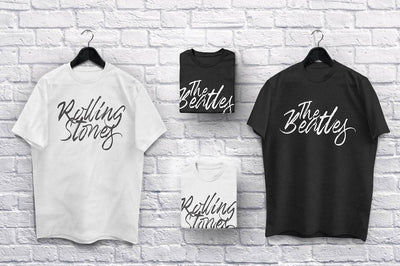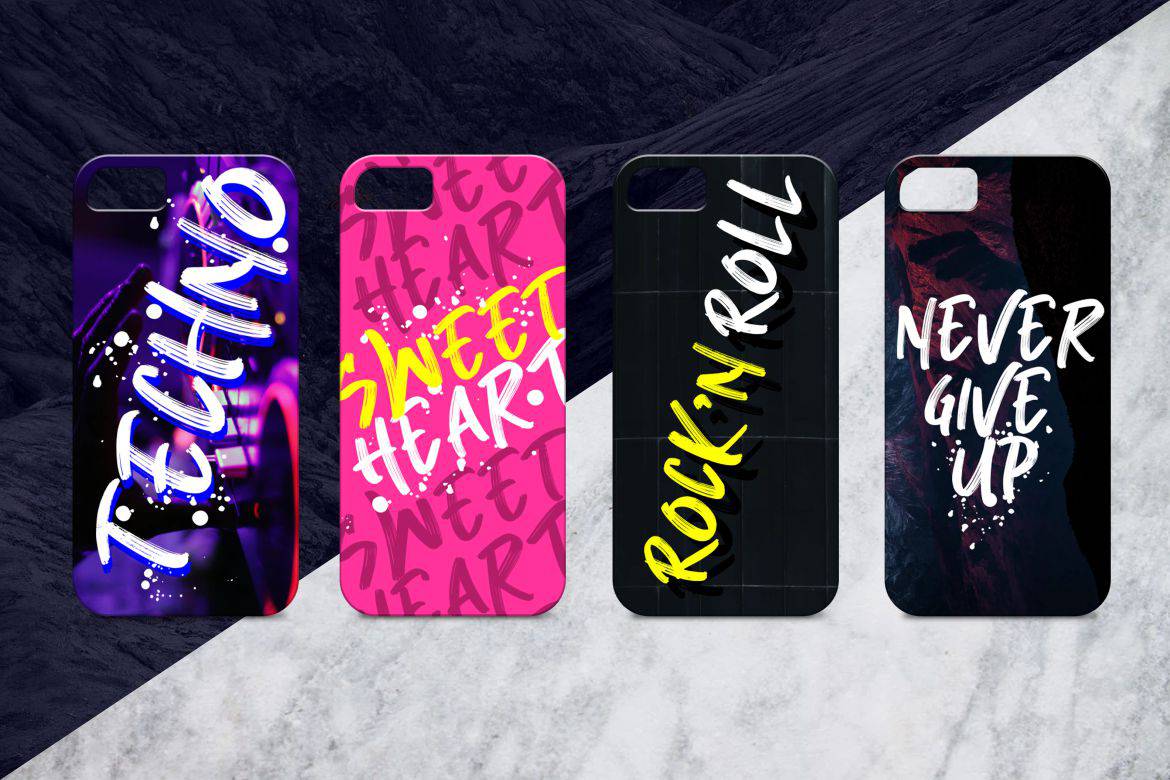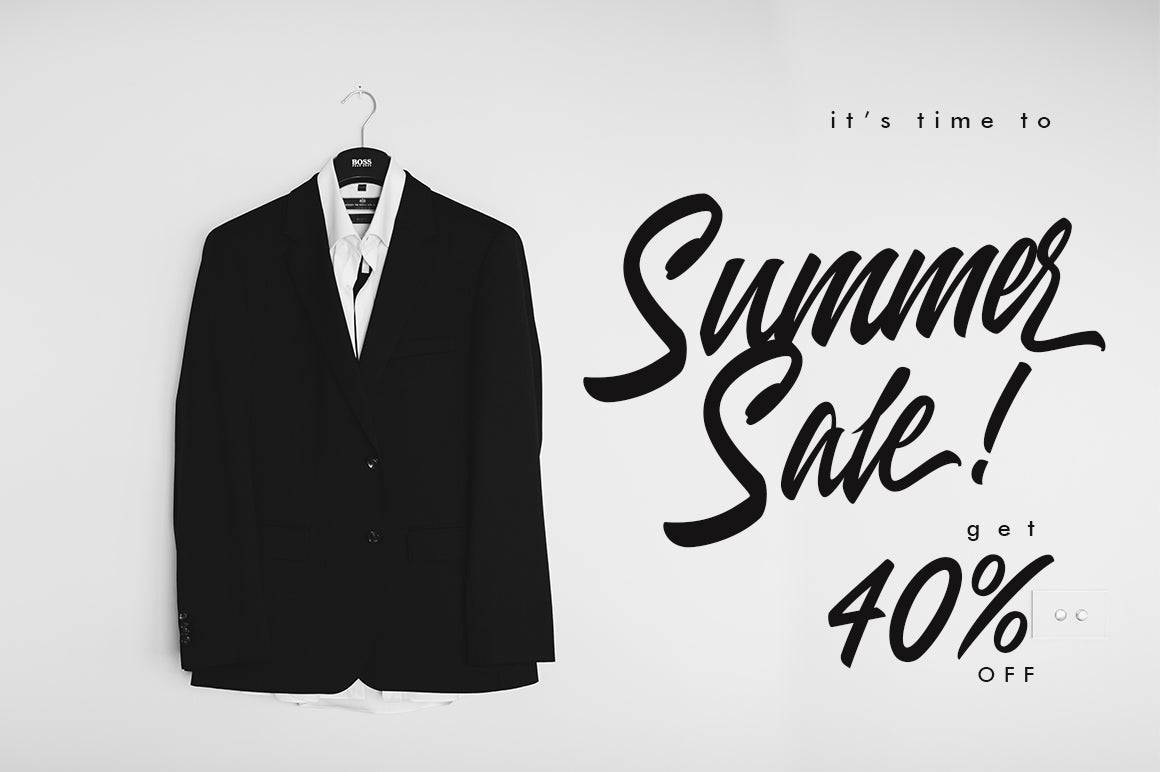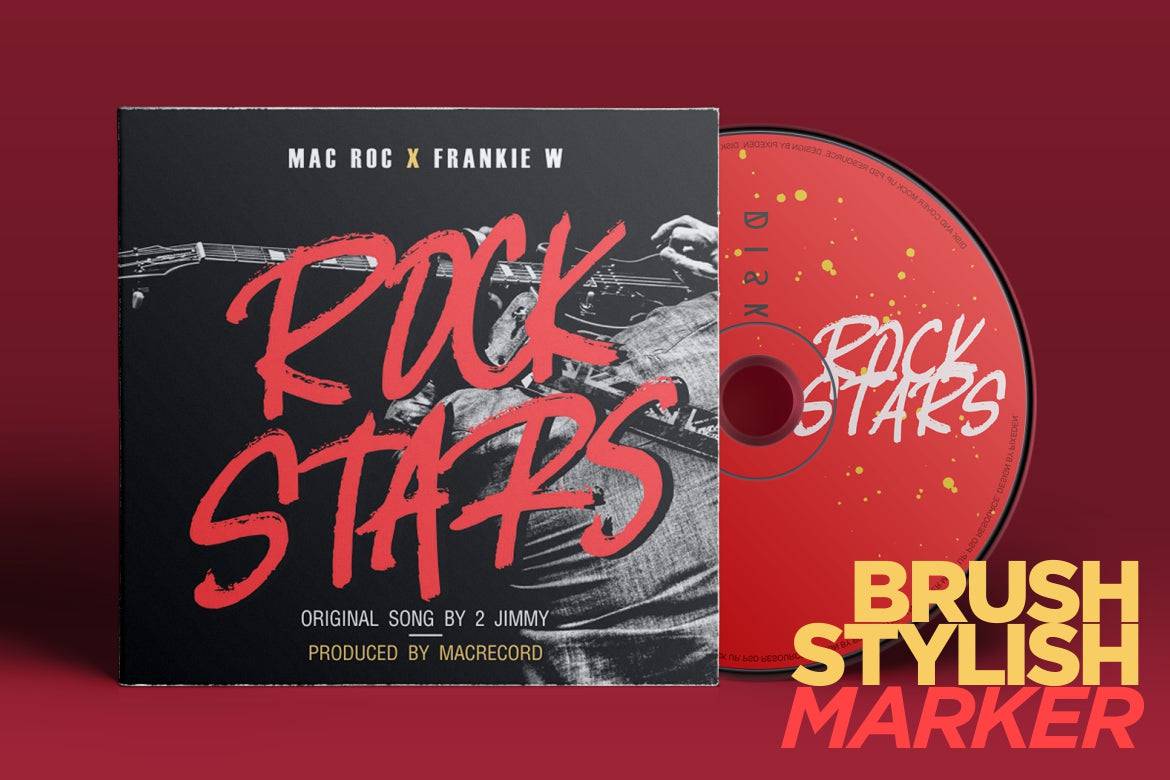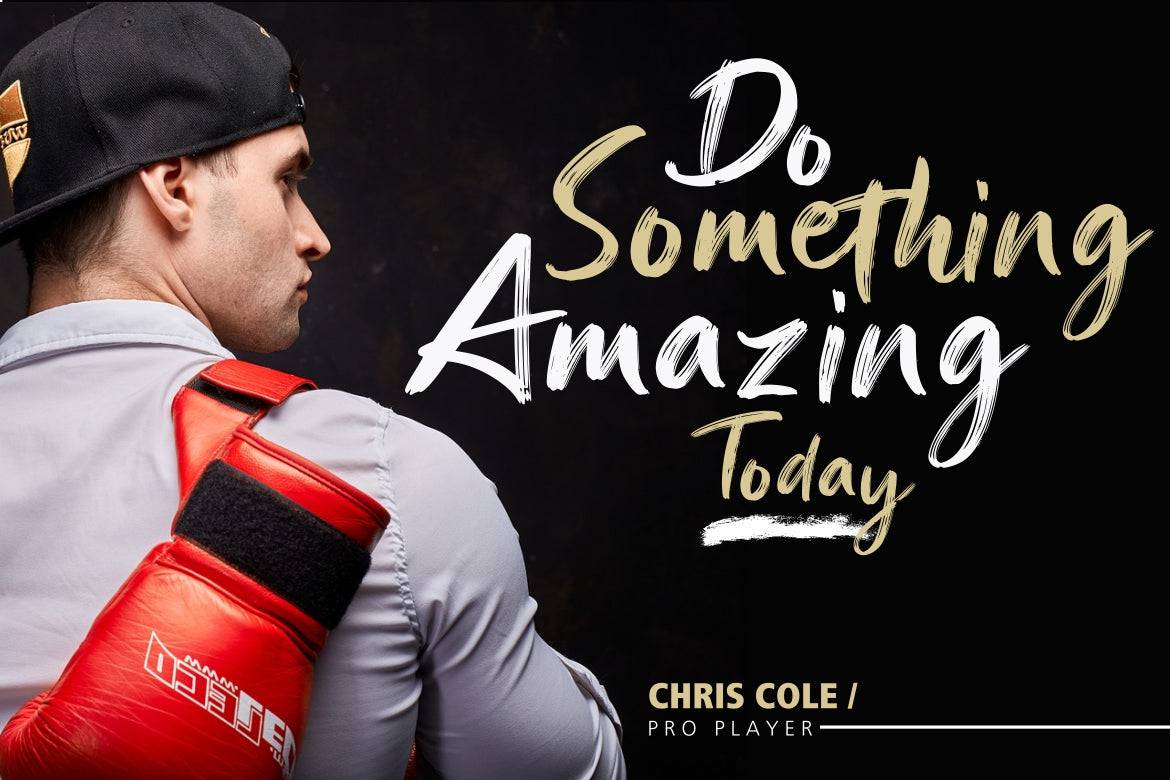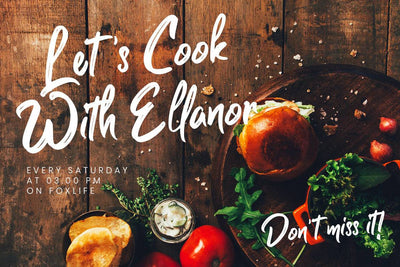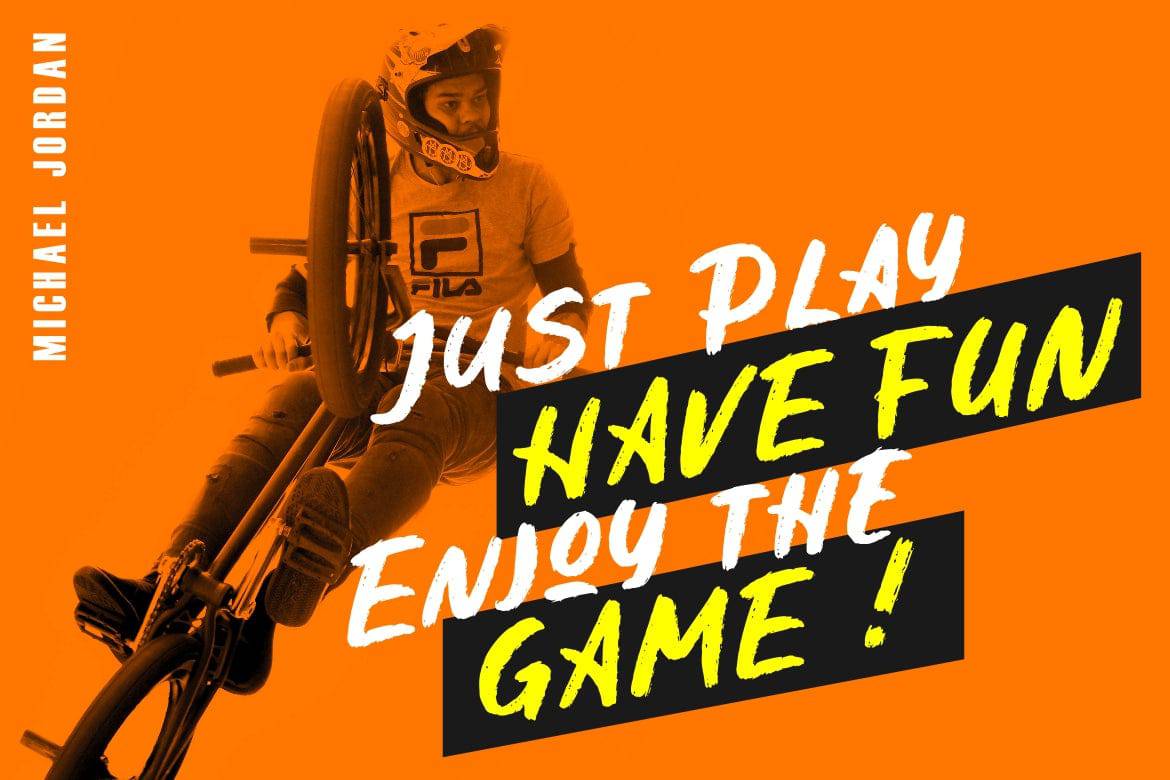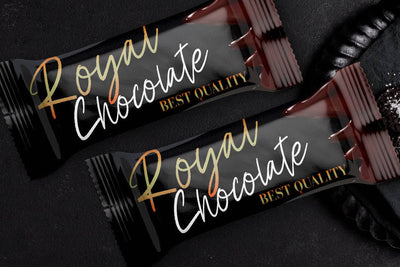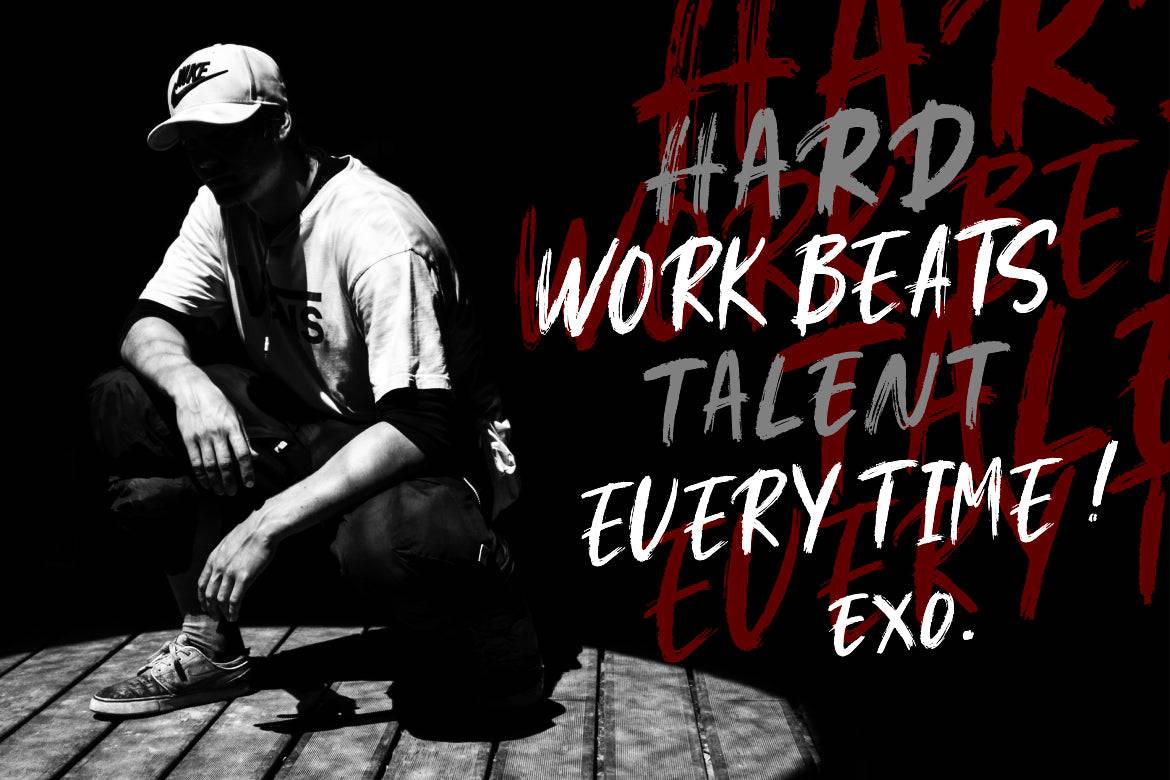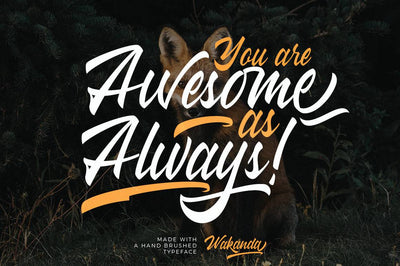
Introducing The Impressive Brush Script Font Bundle that contains some amazing brush fonts that will make your creative designs stand out.
These uniquely styled brush fonts are hand-crafted to mimic the original strokes and features of a brush.
Typefaces Included In This Bundle:
- Aksana
- Banshee
- Breaker The Brush
- Burning Down
- Clattering
- Entreaty
- Ethernal
- Forqend
- Ganttlets
- Giantthy
- Granite
- Guttenbay
- Halowyne
- Herdrock
- Holygrave
- Humblot
- Hypebeast
- Jagernutt
- Jattayu
- Jelytta
- Kreature
- Laracryf
- Lazy Jumps
- Merlyan
- Rathyland
- Renatta
- Sadhise
- Scarletty
- Starshy
- Striped King
- Tharon
- Wakanda
- Whisholder